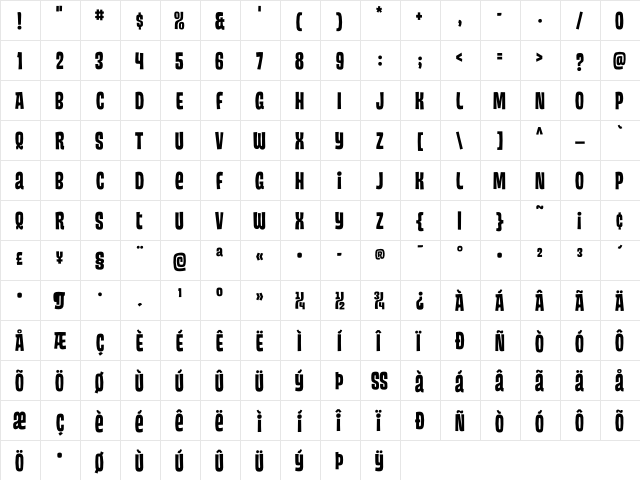
HouseMovements-Custom Regular
| Designer | Ken Barber, Tal Leming |
Design Context for HouseMovements-Custom Typeface
HouseMovements-Custom is a composed and adaptable typeface that performs quietly and consistently across a wide range of design contexts.